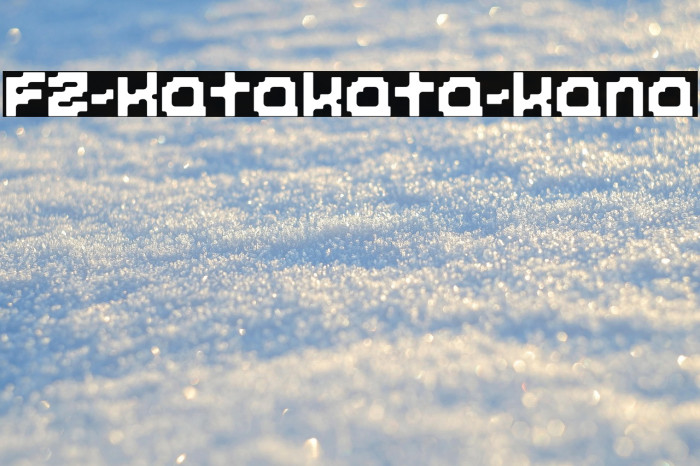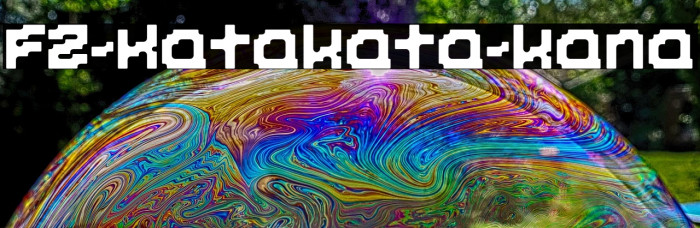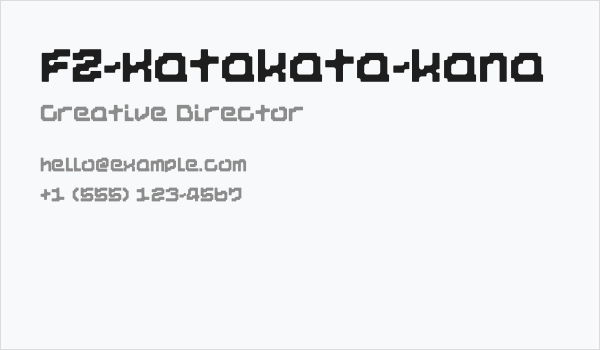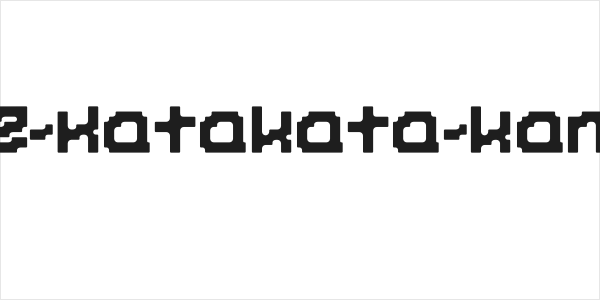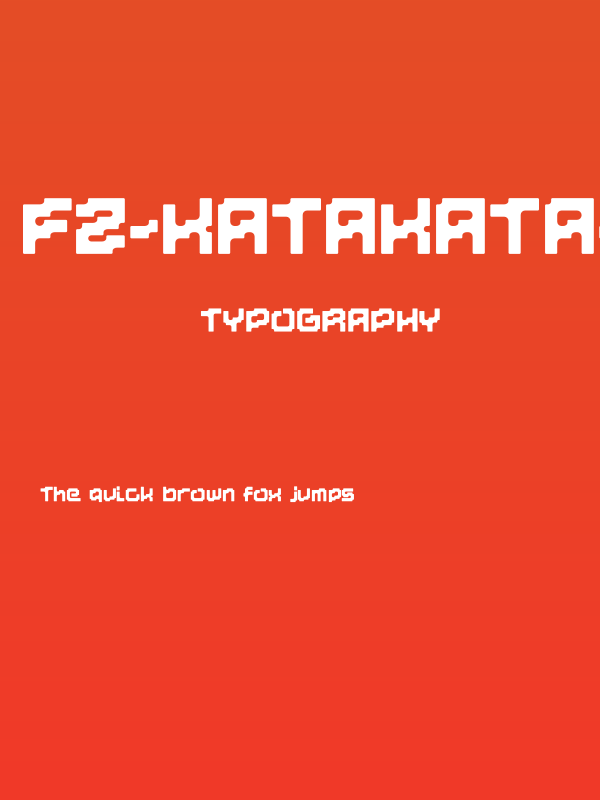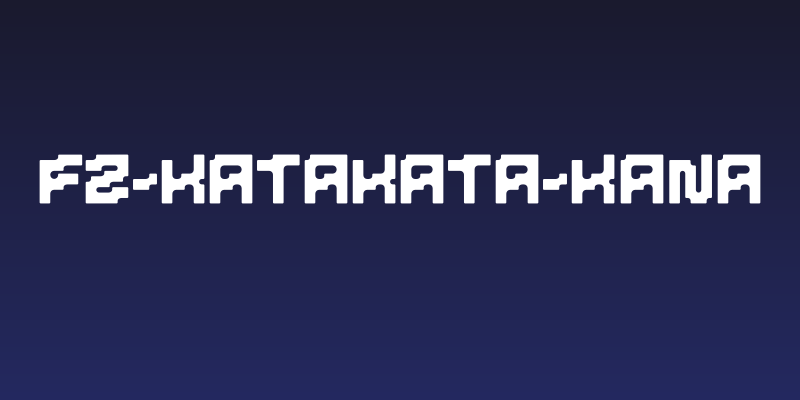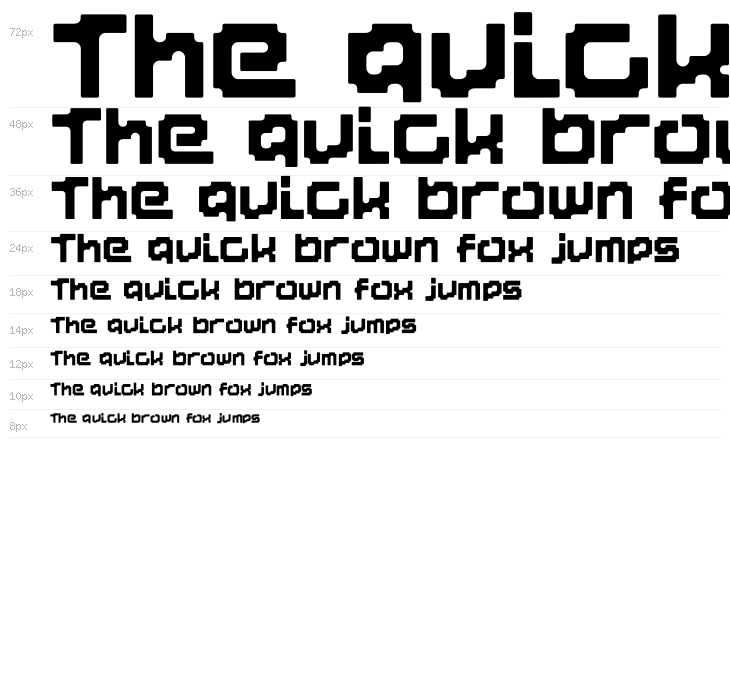
FZ-Katakata-kana Font
FZ-Katakata-kana Description
This font features a bold, pixelated design reminiscent of retro video game aesthetics. The characters are constructed with a blocky, geometric style, giving them a digital, futuristic appearance. The uppercase and lowercase letters maintain a consistent height, contributing to a uniform look. Numbers and special characters follow the same pixelated theme, ensuring cohesion across all elements. The font's distinct style makes it stand out, ideal for projects that aim to capture a nostalgic or tech-inspired feel.
| Overall Style | Retro, Digital |
| Proposed Projects | Ideal for video game designs, tech-themed posters, retro digital art, and branding for tech startups. |